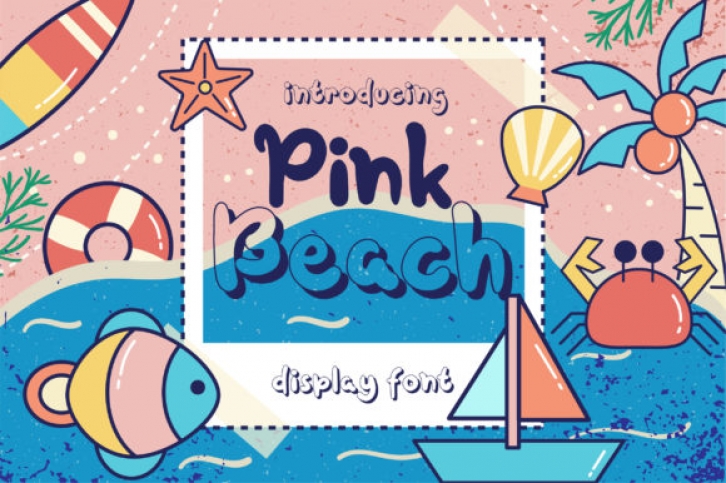
Pink Beach is a beautiful display font. Its casual charm makes it appear wonderfully down-to-earth, readable and, ultimately, incredibly versatile. Pink Beach will look outstanding in any context, whether it’s being used on busy backgrounds or as a standalone headline!